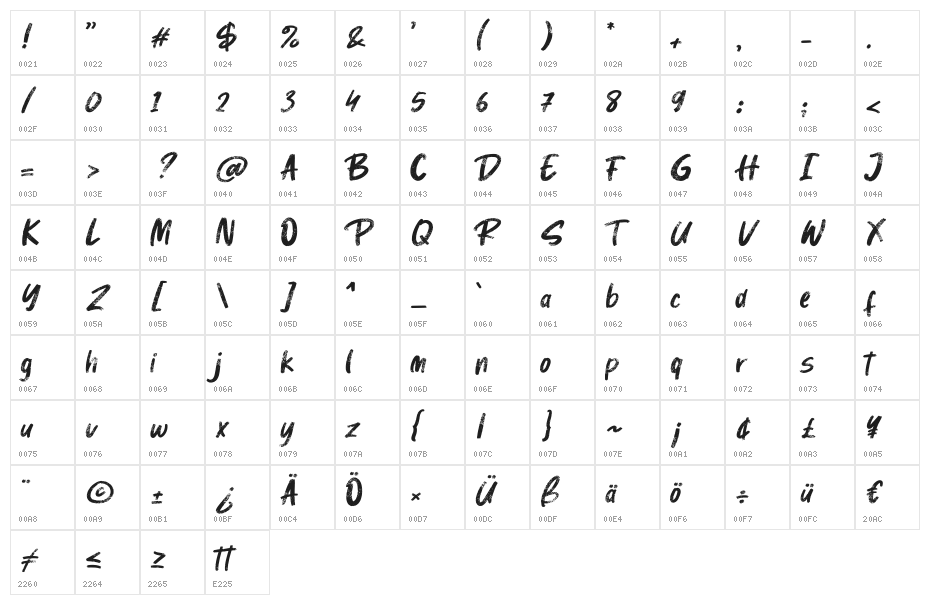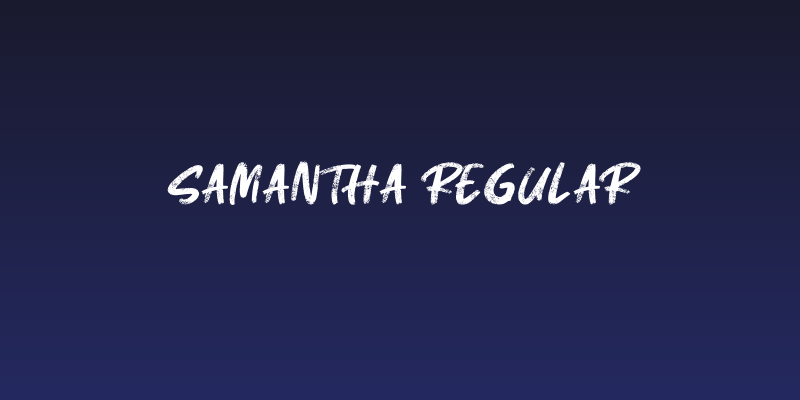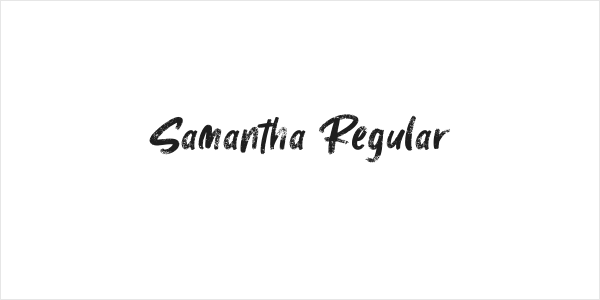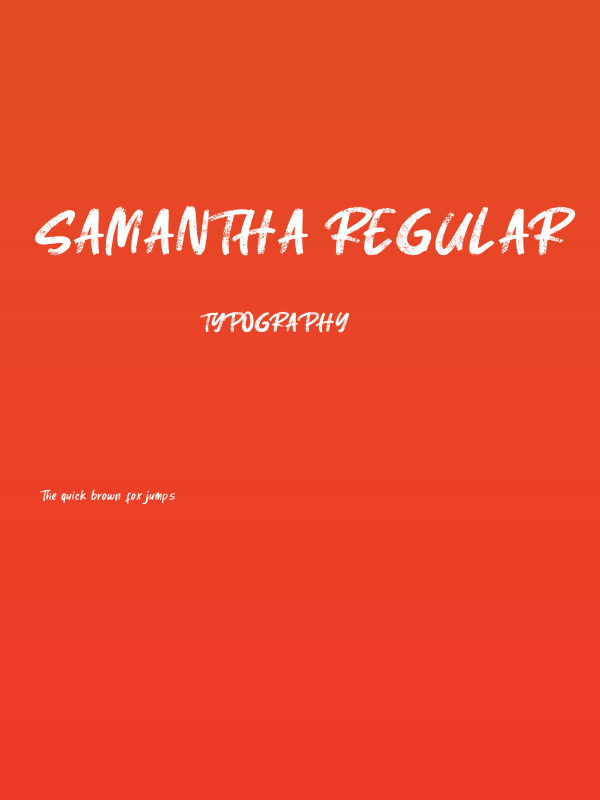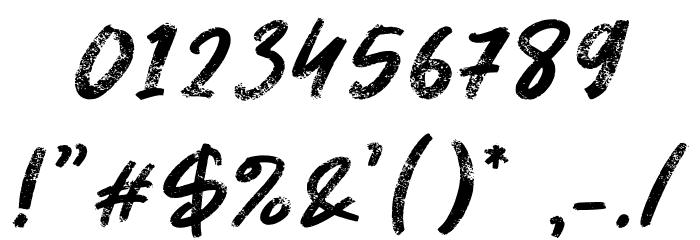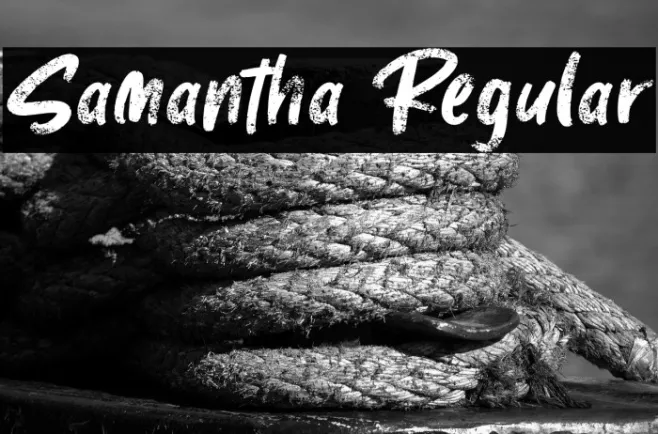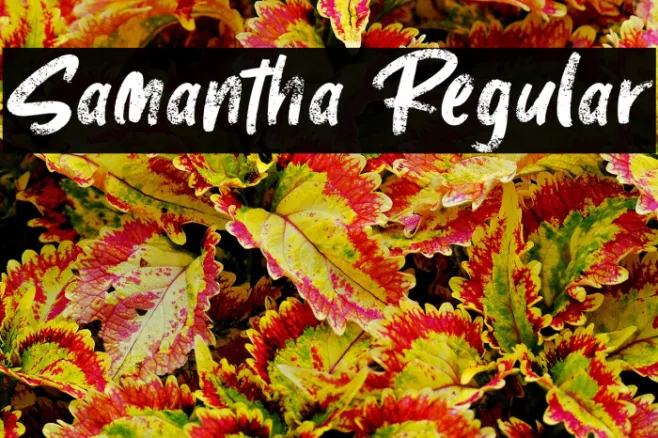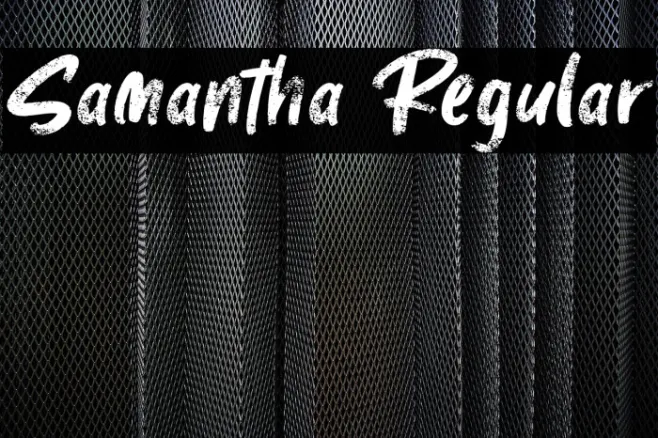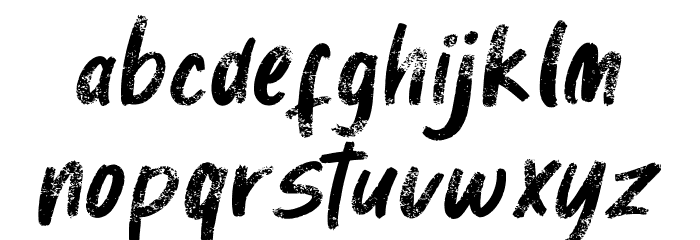
Samantha Regular Font
Samantha Regular Description
This font features a bold and expressive style with a textured, brush-like appearance. The characters are dynamic and energetic, with a hand-painted feel that adds a sense of movement and vibrancy. The uppercase and lowercase letters maintain a consistent style, with slightly irregular edges that enhance the artistic quality. The numbers and special characters follow the same aesthetic, making the font versatile for creative projects. Its bold strokes and textured finish make it stand out, perfect for designs that require a strong visual impact.
| Proposed Projects | Ideal for posters, branding, packaging, and artistic projects that require a bold and dynamic font. |